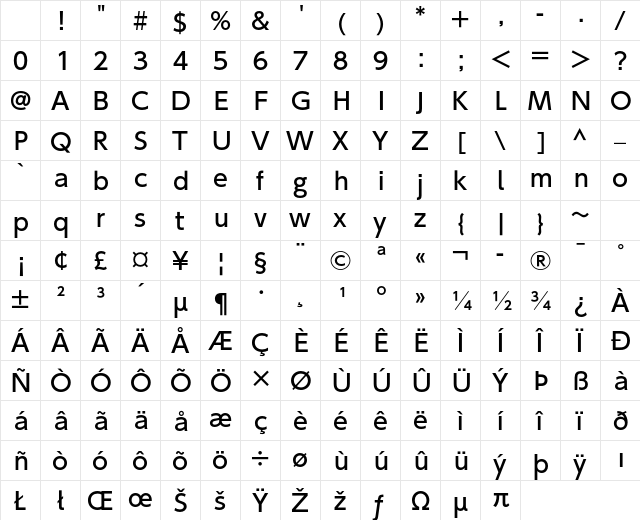
MO ClearTone SG Medium
Complete MO ClearTone SG Medium glyph index. Displaying only characters natively supported by MO ClearTone SG Medium font.
Design Context for MO ClearTone SG
MO ClearTone SG is a composed and adaptable typeface that performs quietly and consistently across a wide range of design contexts.
Pro Tip: Use MO ClearTone SG in both headline and body roles to test its range before committing to a single application.